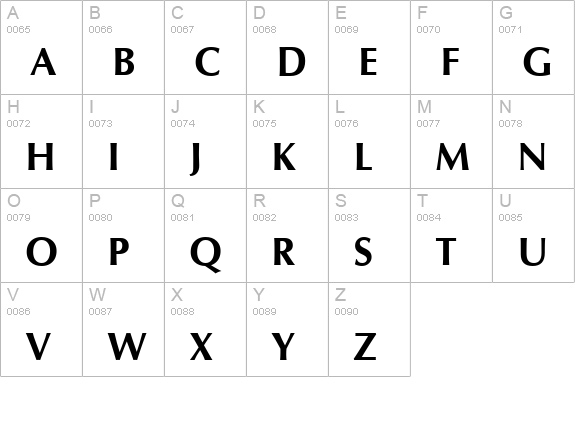
CG Omega Bold is a strong, high-contrast variant in the CG typeface family \xE2\x80\x94 well suited to headlines, attention-grabbing titles, and strong calls-to-action.
Introducing CG Omega Bold font, a bold and dynamic typeface that commands attention with its powerful presence. This versatile font is perfect for creating impactful headlines, posters, logos, and more. With its strong and modern design, CG Omega Bold makes a bold statement in any project. The best part? CG Omega Bold is available for free download at FontsMarket.com! This means you can easily add this stunning font to your collection without any cost. Don't miss out on the opportunity to enhance your designs with the striking CG Omega Bold font. Download it now and unleash your creativity!